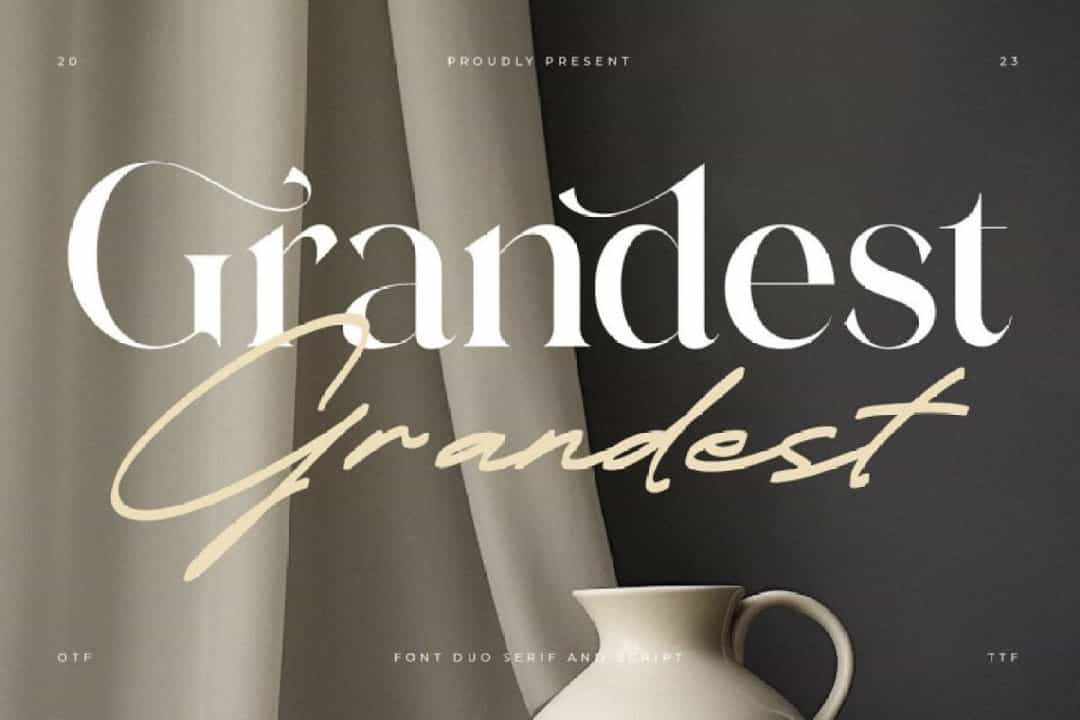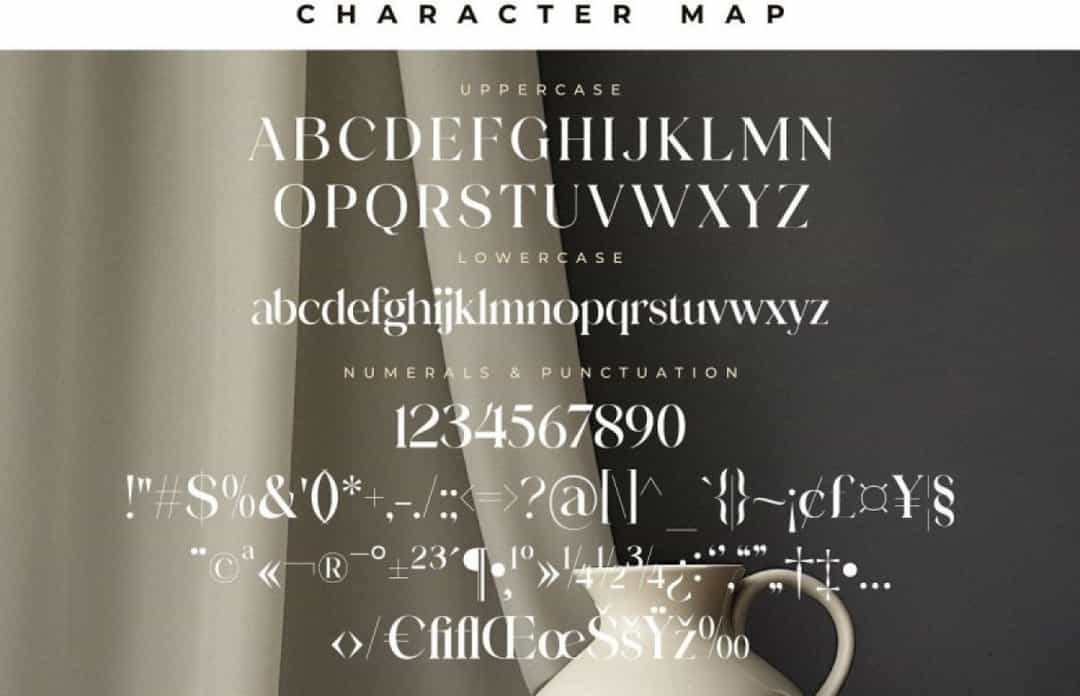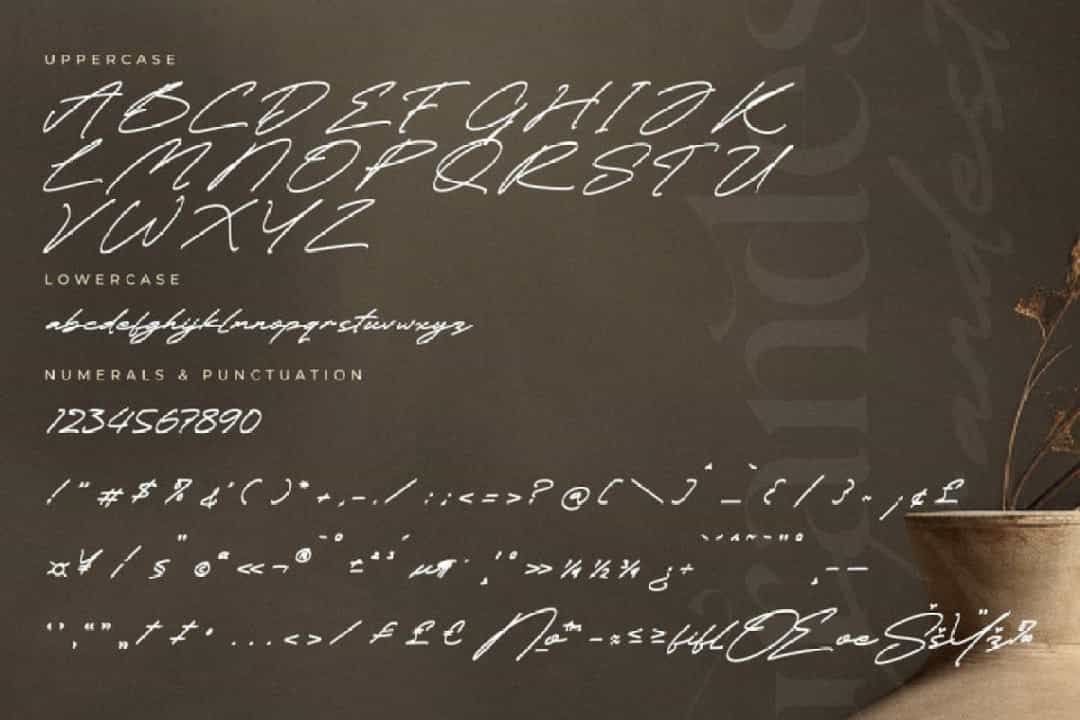
Discover Grandest Font, part of the Handwritten Serif collection—a versatile and unique font perfect for adding a personal touch to your projects. Download it for free and enjoy crafting designs with style, from invitations to social media posts. This font is available exclusively for personal use, giving you the freedom to create without limits. Unlock your creativity with Grandest Font today!
This elegant script and serif font pair captivates with its distinct style and contemporary appearance. Perfect for logo creation, movie title designs, clothing brands’ clothing brand names, magazine letters, quotes and much more, its PUA coded format means instant access to its incredible symbols and ligatures!